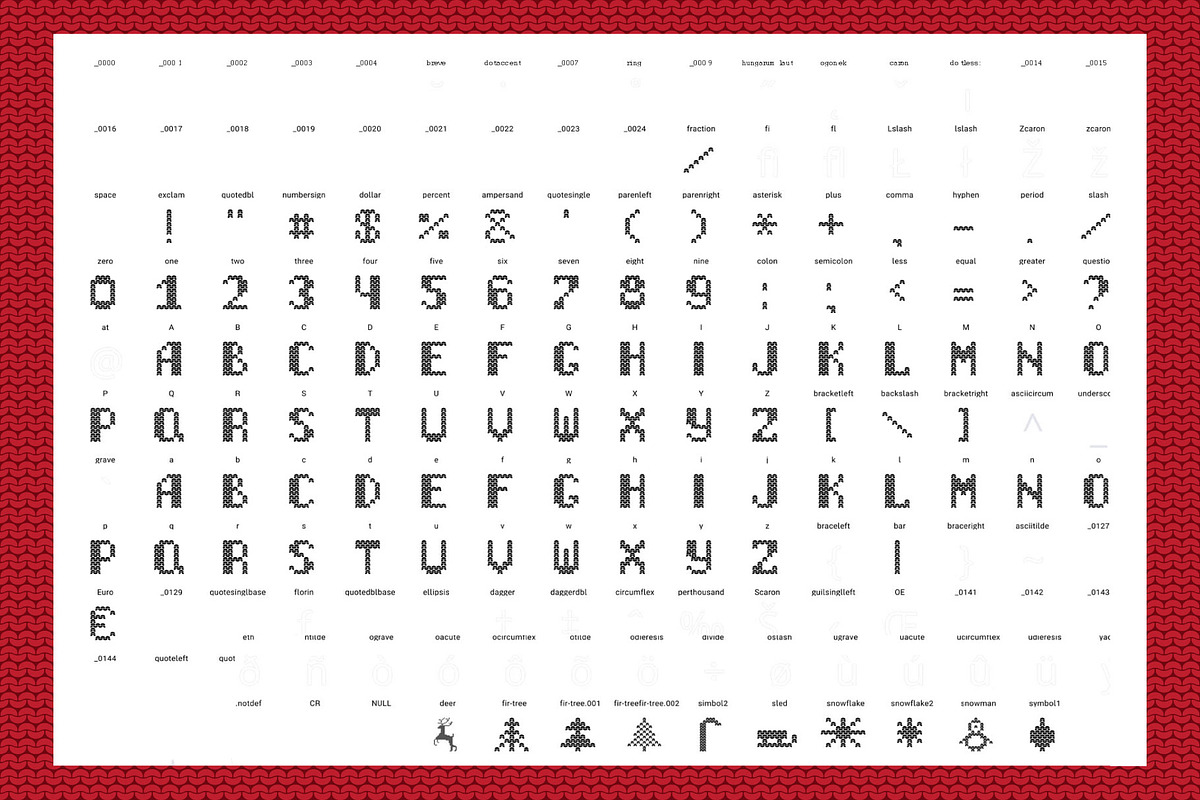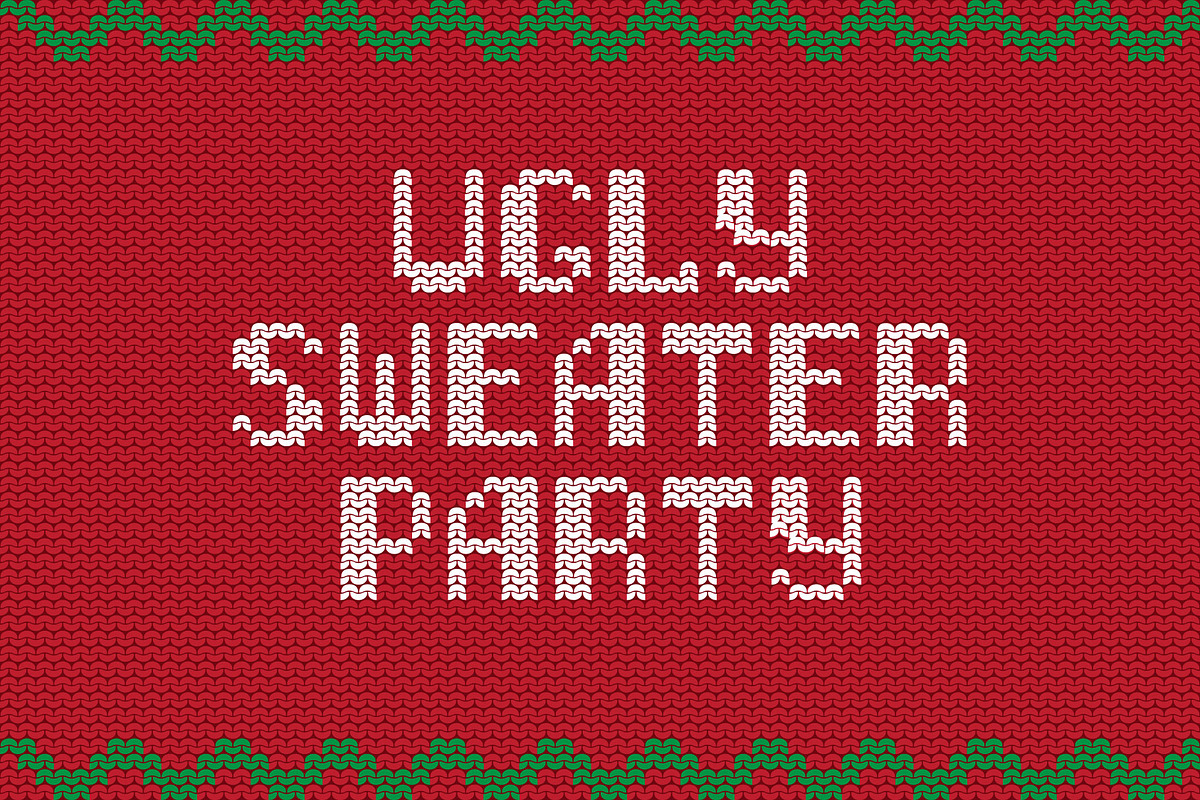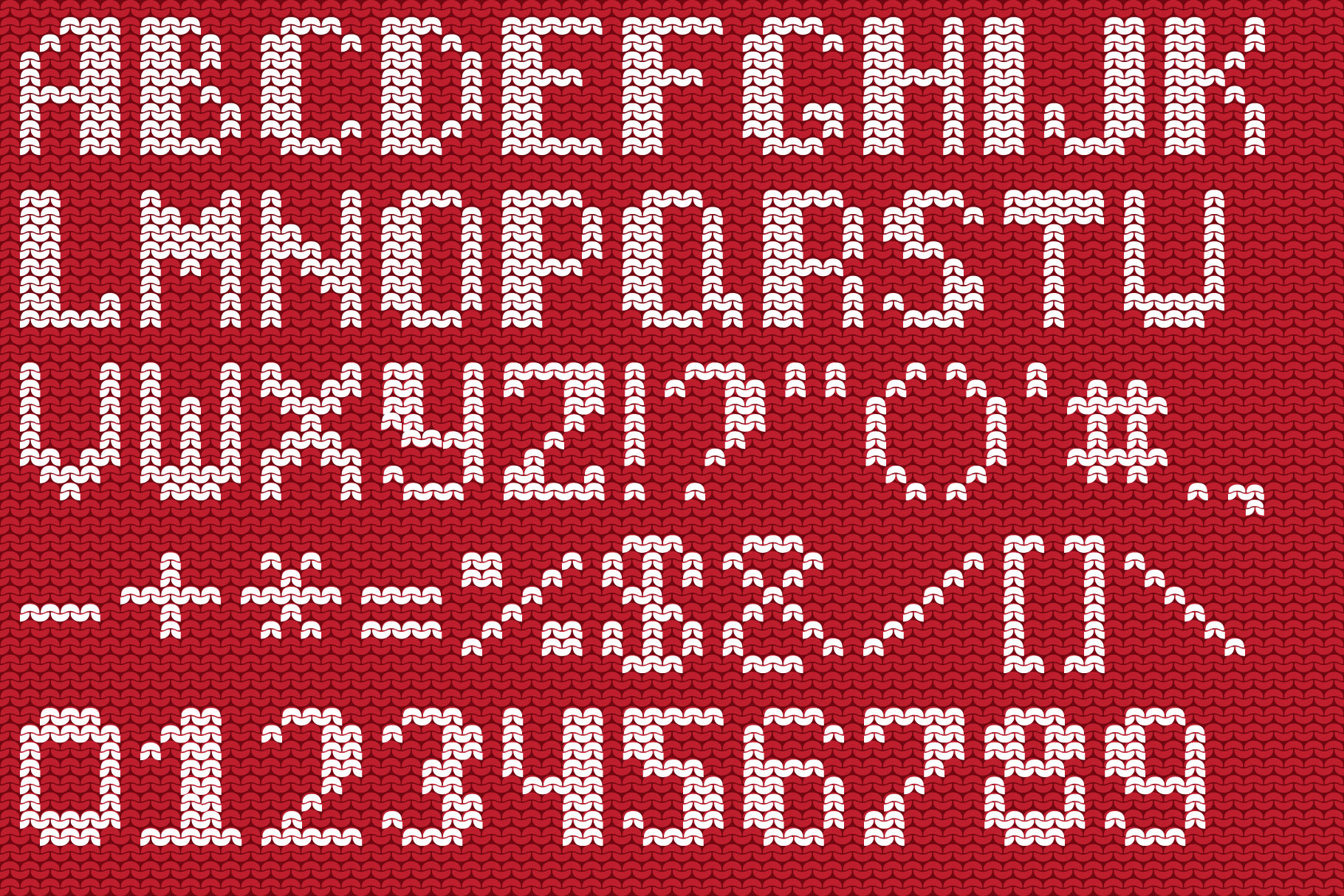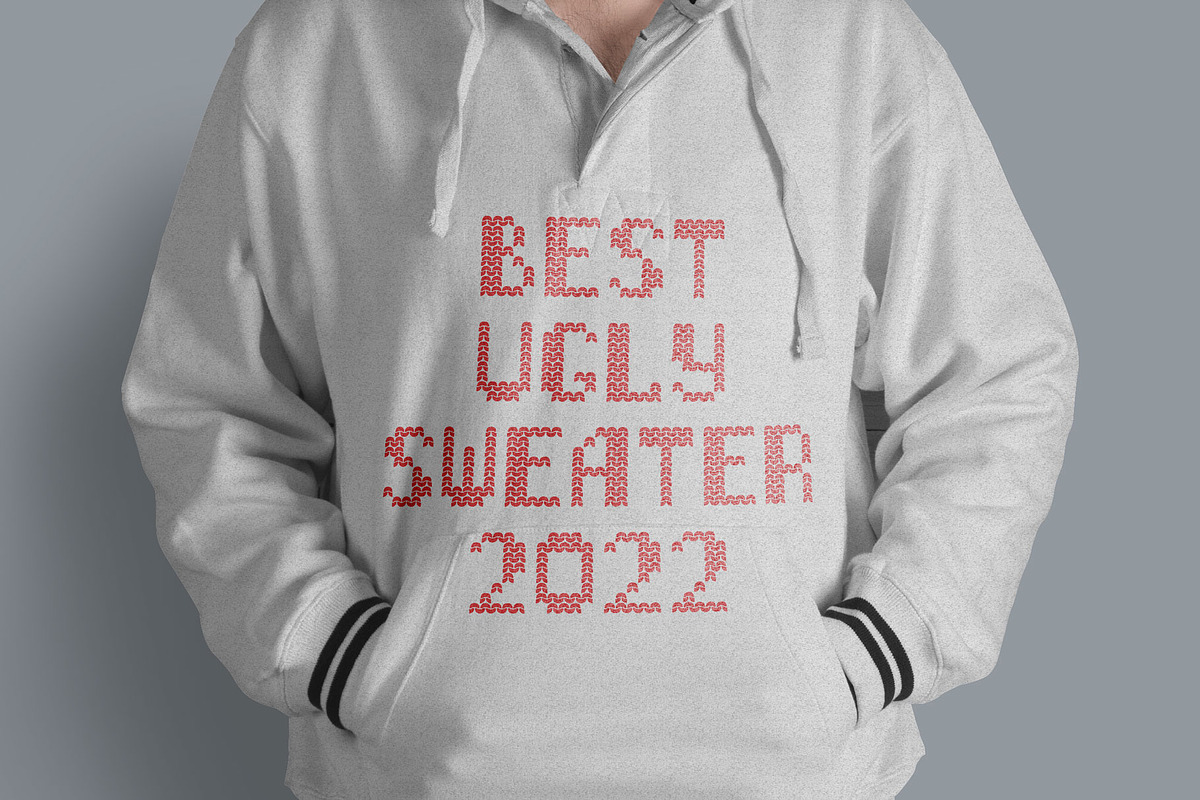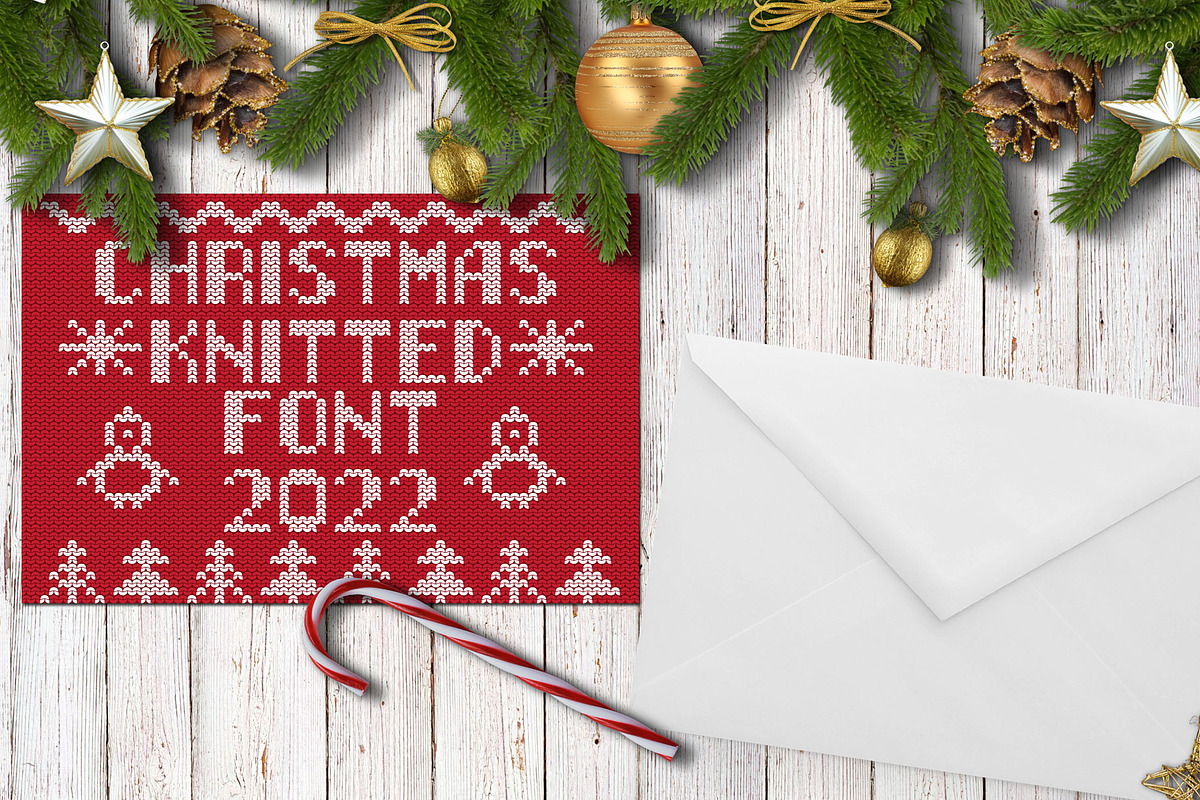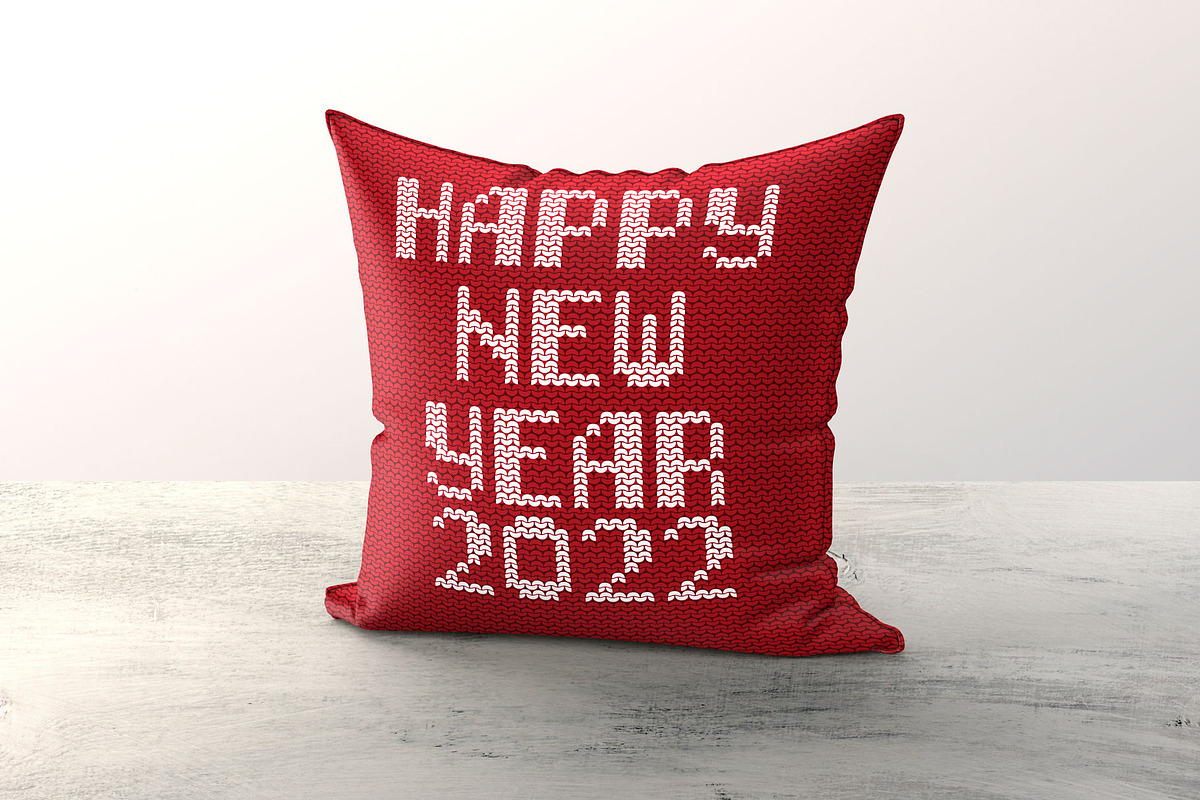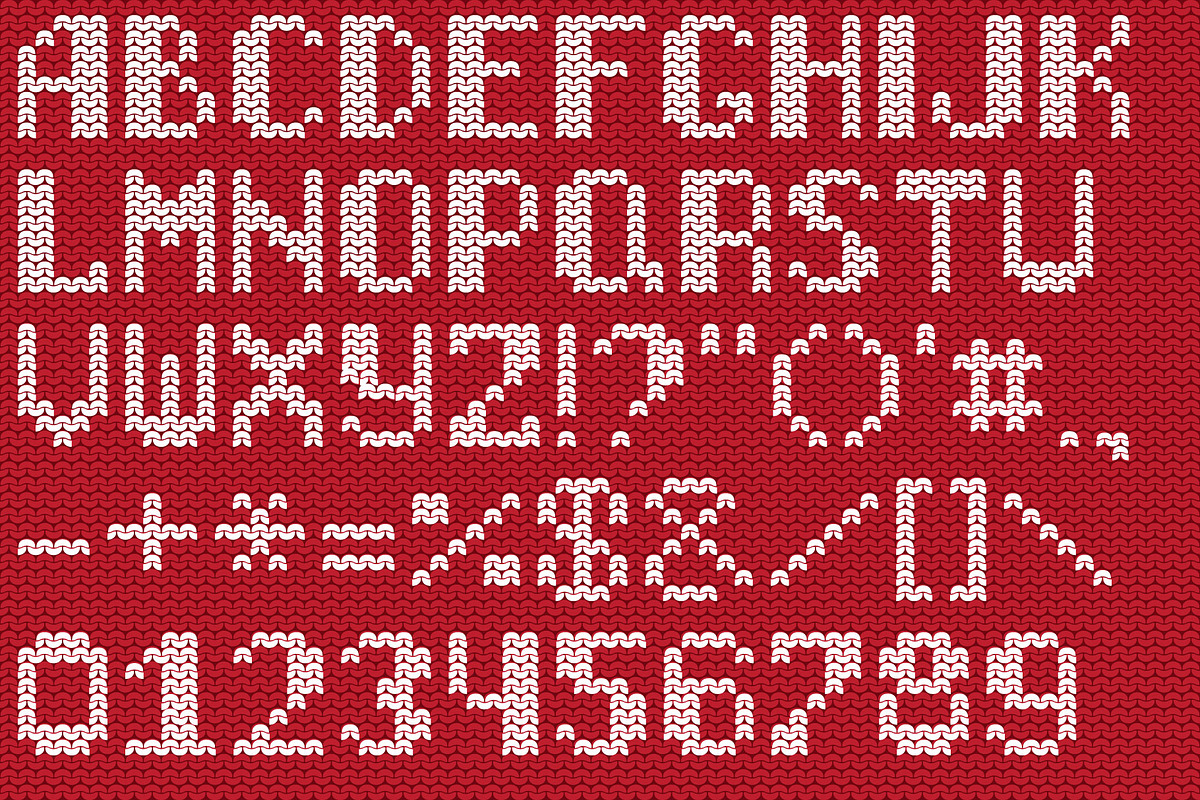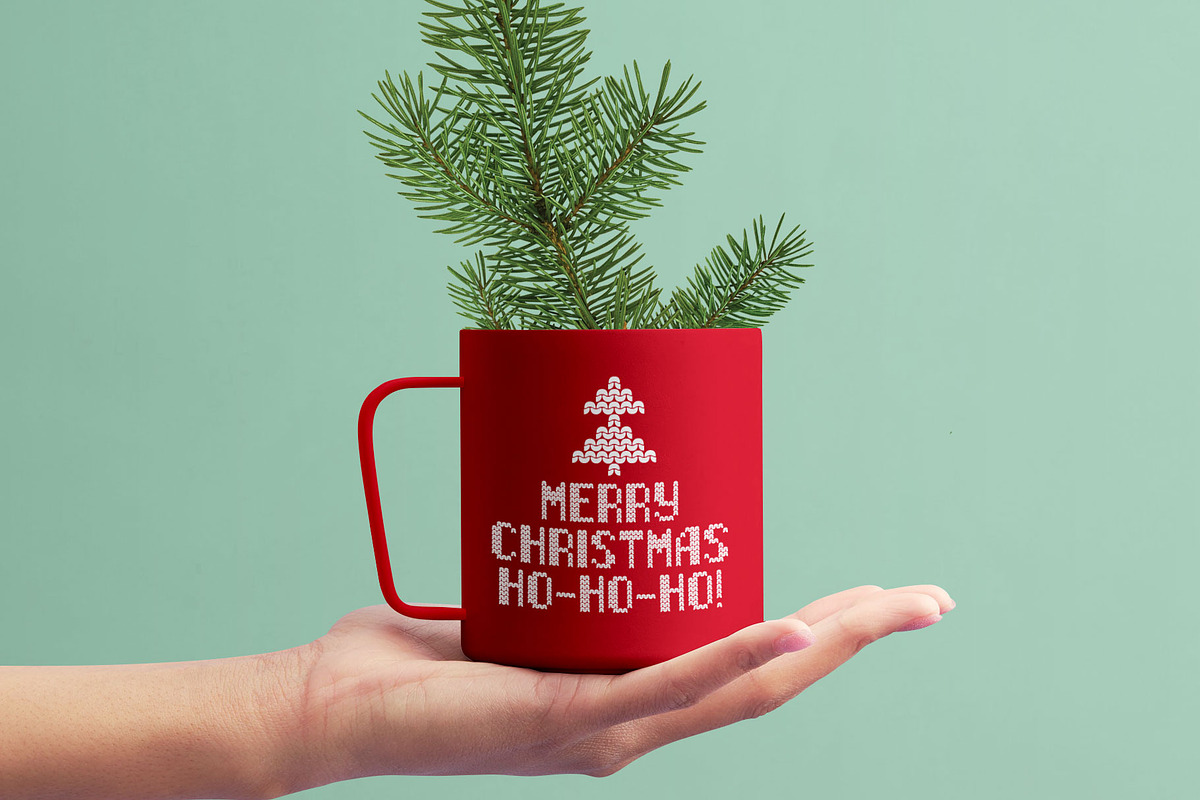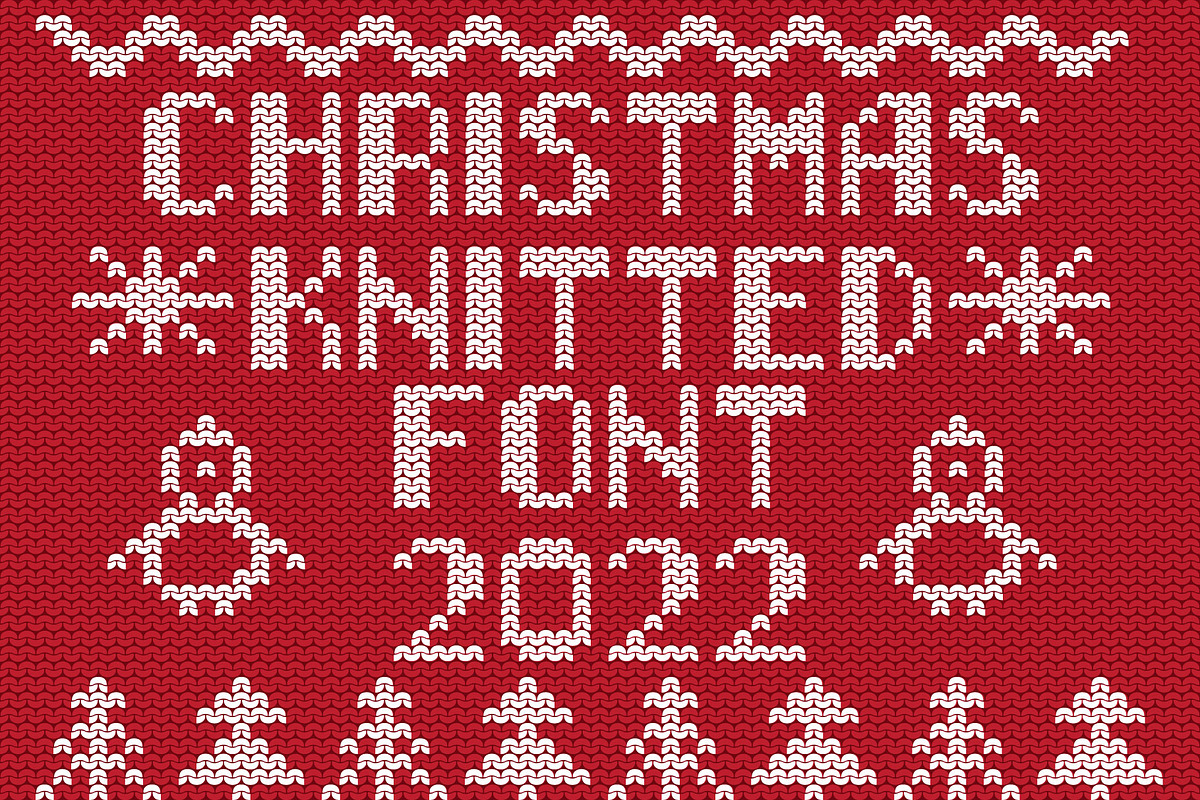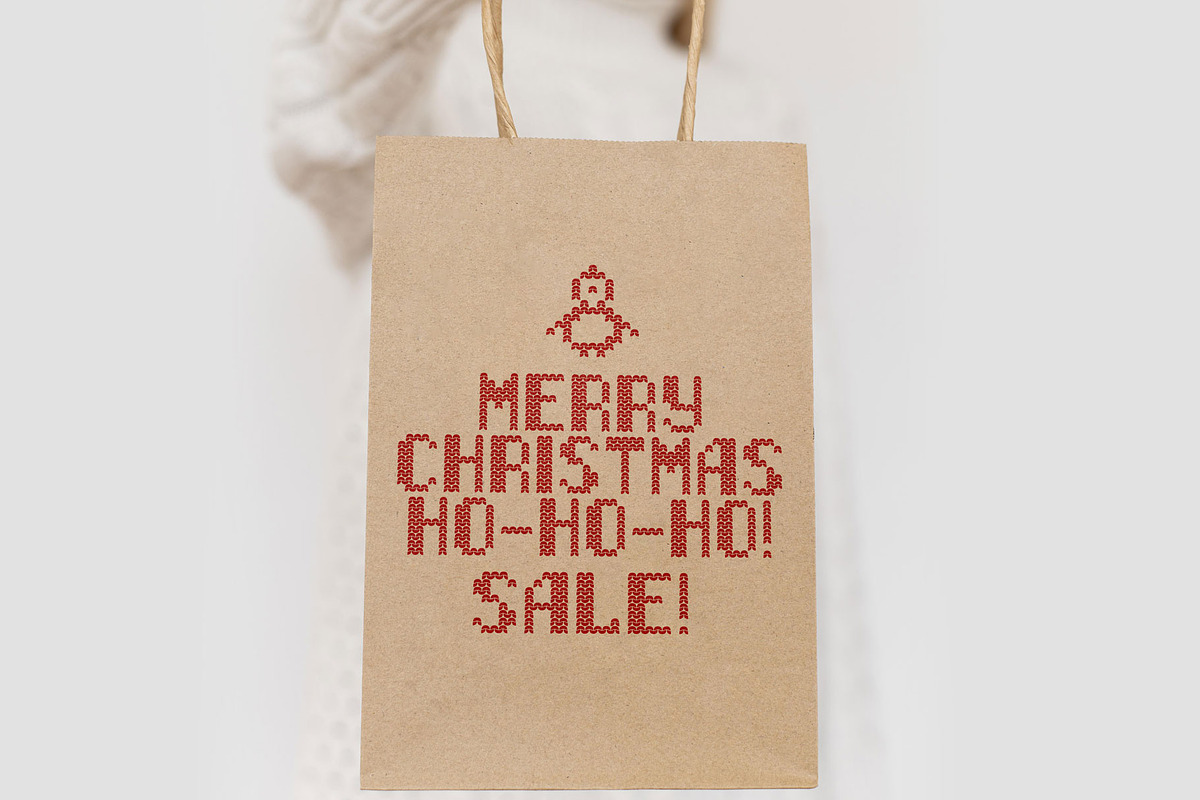
Christmas Knitted Font Web
Christmas Knitted Web Font Version 5.0
All letters, punctuation signs and christmas design elements. In Christmas Knitted Font Version 5.0 enters the knitted background perfectly suitable for the font. You can use Christmas Knitted Font Version 5.0 in the design of invitation or flyers to your party dedicated: Merry Christmas, Happy New Year or Ugly Sweater party. You can also use Christmas Knitted Font Version 5.0 for advertising and marketing. For example, in Christmas Discount, Christmas Sale, Winter Sale. Use the Christmas Knitted Font in design on page on social networks Instagram or Facebook and your post will attract attention.
Added Vector Knitted Background!
The font fits perfectly to the background!